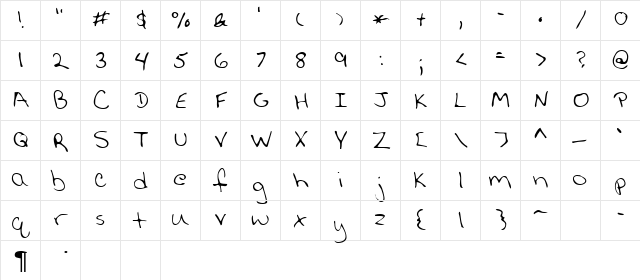
Jerry Regular
Design Context for Jerry Typeface
Jerry is a composed and adaptable typeface that performs quietly and consistently across a wide range of design contexts.